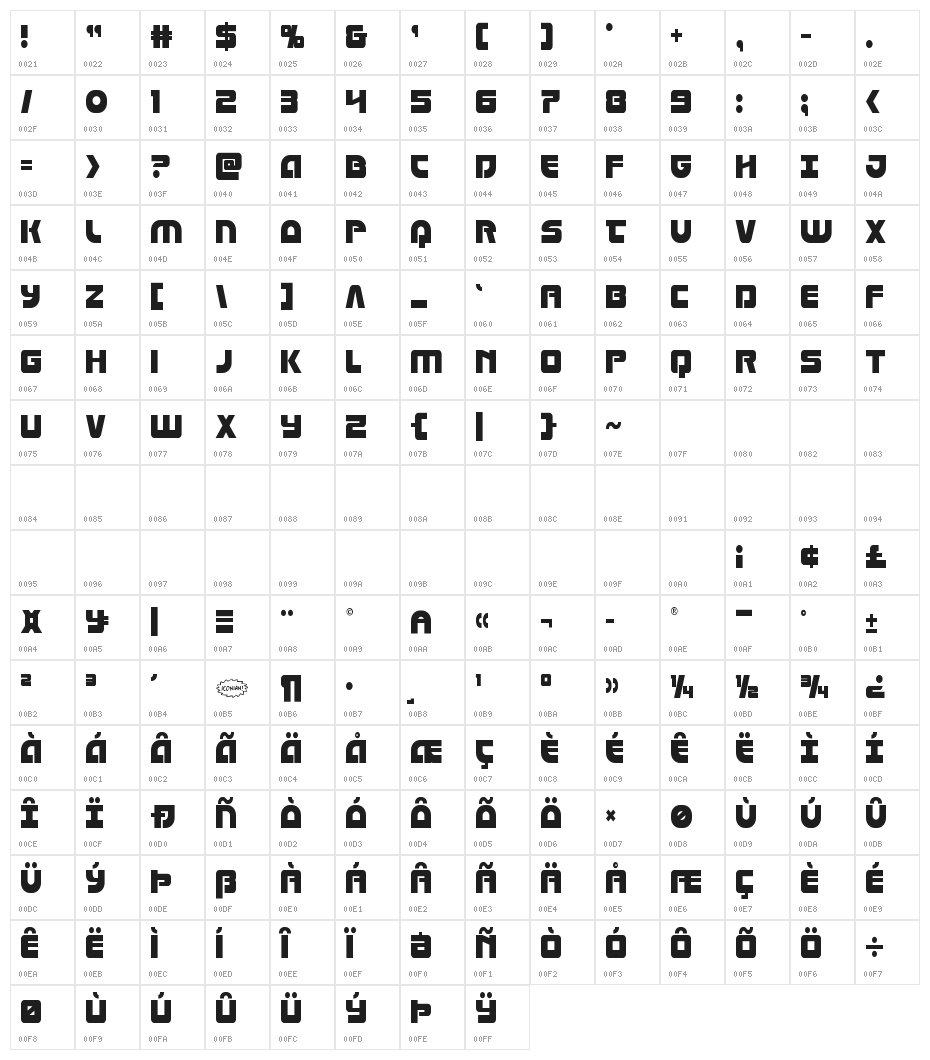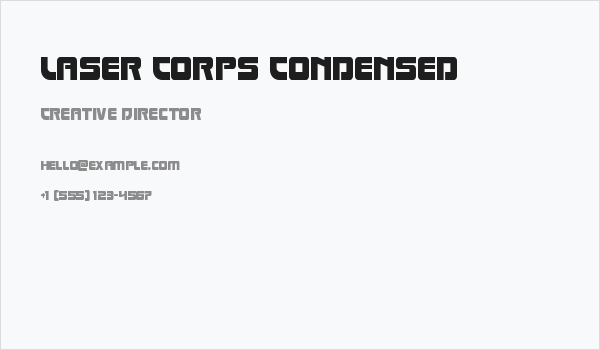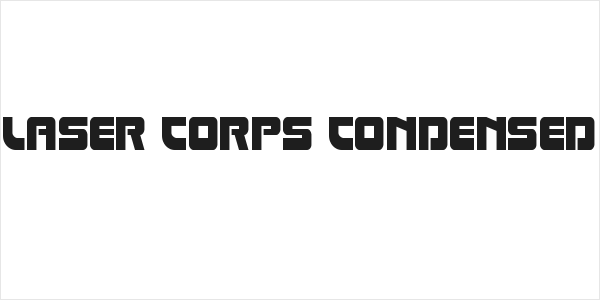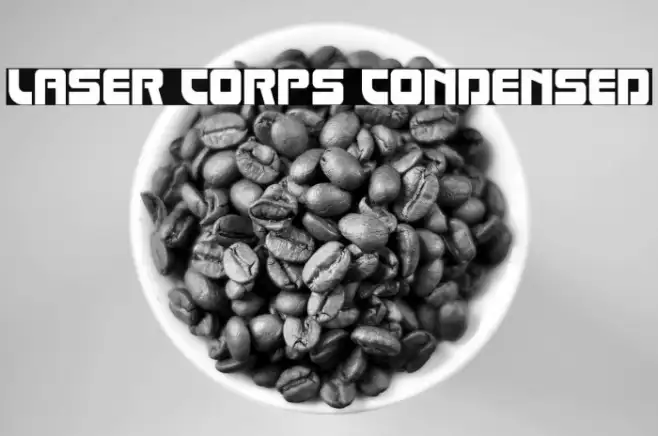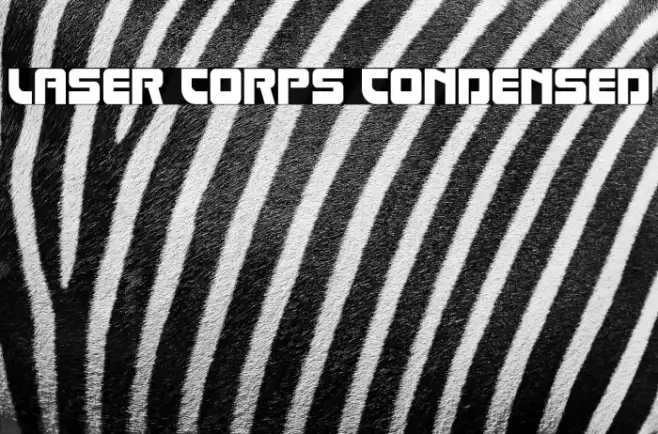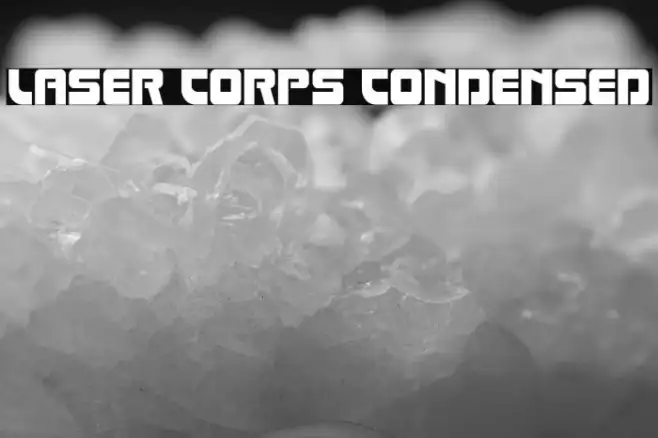
Laser Corps Condensed Font
Laser Corps Condensed Description
This font features a bold and futuristic design with a condensed structure, making it ideal for impactful and attention-grabbing text. The characters are uniformly thick, with a geometric and angular style that conveys a sense of modernity and strength. The uppercase letters are particularly striking, with sharp edges and a solid presence. The numerals and special characters maintain the same boldness and geometric precision, ensuring consistency across all text elements.
| Proposed Projects | Ideal for sci-fi themed projects, technology branding, video game titles, and posters that require a modern and bold aesthetic. |